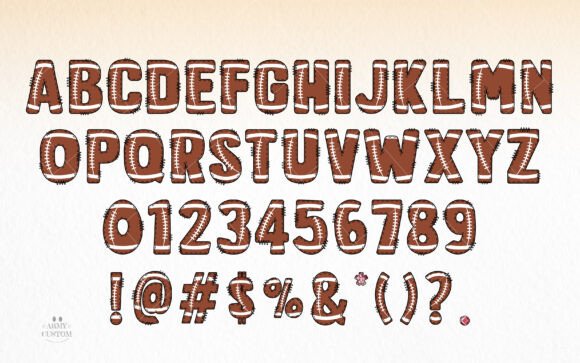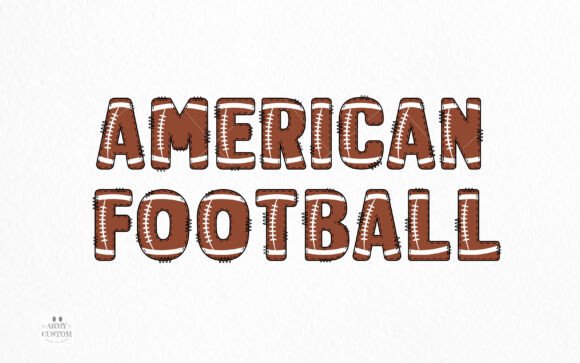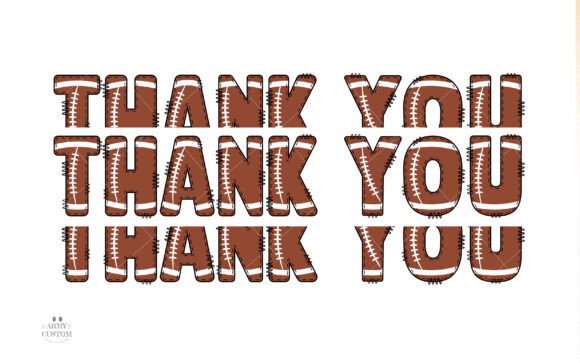
Touchdown for Typography: Unleashing the Power of the American Football Font
Have you ever been watching a thrilling football game, feeling the electric atmosphere and the rush of adrenaline as the players clash on the field? That’s the kind of creative spark that inspired the American Football Alphabet, a dynamic font that embodies the essence of America’s favorite sport.
Designed to capture the essence of gridiron action, the American Football Font seamlessly combines design and sport, exuding dynamism and competitive spirit. For designers, this font is a valuable asset, offering a unique way to communicate strength, agility, and unyielding spirit. Whether you’re a sports enthusiast or a creative looking to add some excitement to your typography, the American Football Font is sure to score big.
- Unique Characteristics: The font features bold, dynamic letterforms and numbers, with a distinctive “stencil” feel that evokes the energy and excitement of American football.
- Number and Symbol Support: The font includes a range of numbers and symbols, including football-themed icons and ligatures, to enhance its usability for sports-related applications.
Designer Review: American Football Font
Overall, I was quite impressed with the American Football Font. Here’s what worked well for me: ✨ The font’s bold and chunky design effectively captures the spirit of American football. It’s perfect for creating eye-catching logos, signage, or merchandise. ✨ The font’s versatility in terms of font sizes and styles makes it a great choice for various applications. ✨ The font’s unique details, such as the stylized numerals and letterforms, add an extra layer of visual interest.
However, I did encounter some limitations: ⚠️ The font’s design can be quite busy, which may make it difficult to read in certain contexts. ⚠️ The font’s bold style can be overwhelming if not used judiciously. ⚠️ The font’s stylized details may not be suitable for all applications, such as body text or captions.
The American Football Font is a great choice for designers looking to create bold and attention-grabbing designs. While it has some limitations, its unique design and versatility make it a valuable addition to any font collection.
Recommendation
I would recommend the American Football Font for:
- Creating logos and branding materials for American football teams or leagues
- Designing signage and merchandise for sports events
- Adding a bold and playful touch to sports-themed designs
Here are some tips to help you get the most out of the American Football Font:
- Use it to create bold and eye-catching headlines.
- Combine it with other fonts to create a unique and dynamic look.
- Experiment with different font sizes and colors to achieve the desired effect.
Here are some common use cases for the American Football Font:
- Sporting events and teams.
- Choose a bold font size to make the team name stand out.